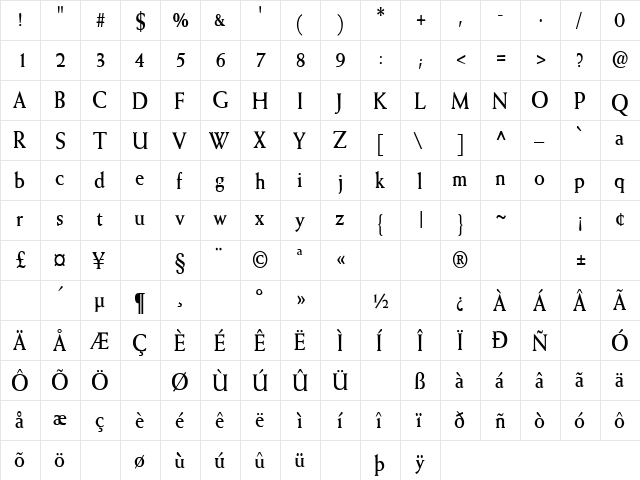
Woman Of The World 5 Regular
Design Context for Woman Of The World 5 Typeface
Woman Of The World 5 offers clean, dependable letterforms without strong stylistic allegiance, making it a practical choice for designers who need flexibility.